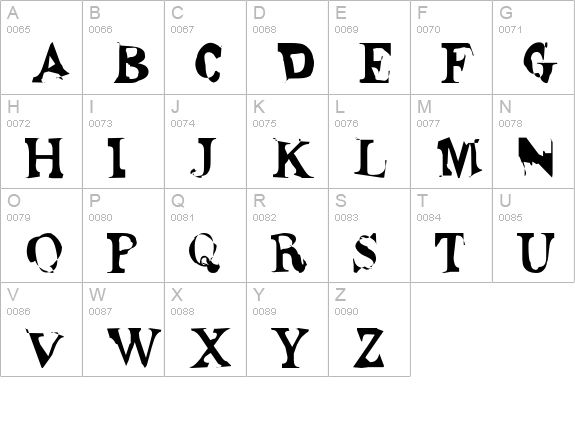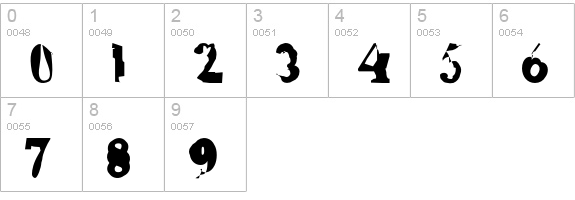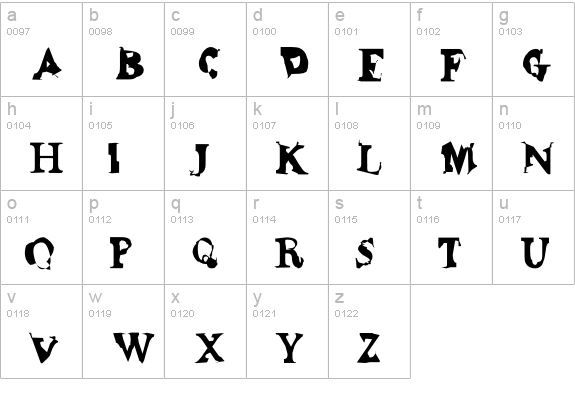
Erosive Font Details
Erosive font is a striking display typeface that exudes a sense of ruggedness and edginess. Its unique design features sharp, weathered edges that give it a distressed look, perfect for projects seeking a touch of grit and character. Erosive font is ideal for headlines, posters, and branding materials where you want to make a bold statement. Best of all, Erosive font is available for free download at FontsMarket.com. This means you can easily access this eye-catching font without any cost, making it a valuable addition to your design toolkit. Don't miss out on the opportunity to enhance your projects with the dynamic and impactful Erosive font – download it today and let your creativity shine!